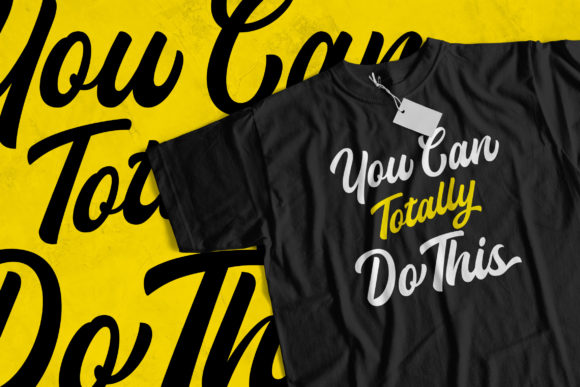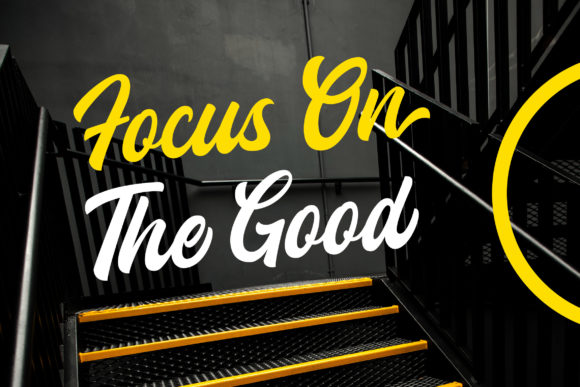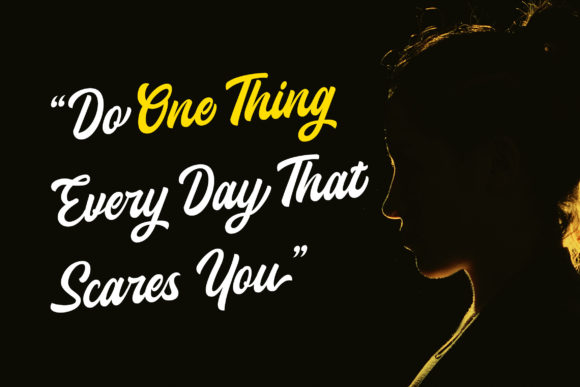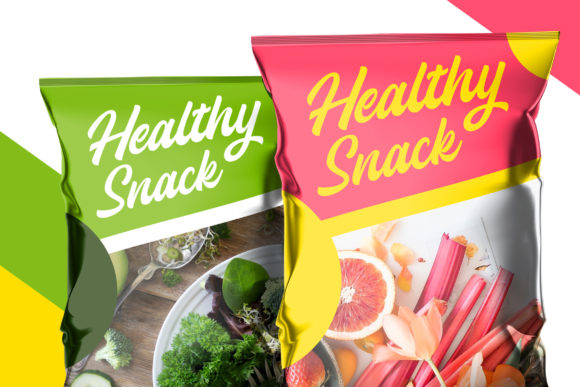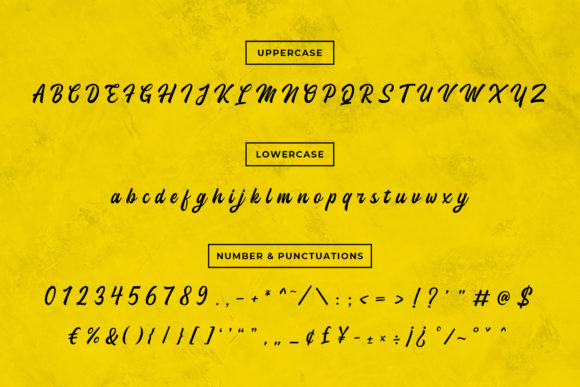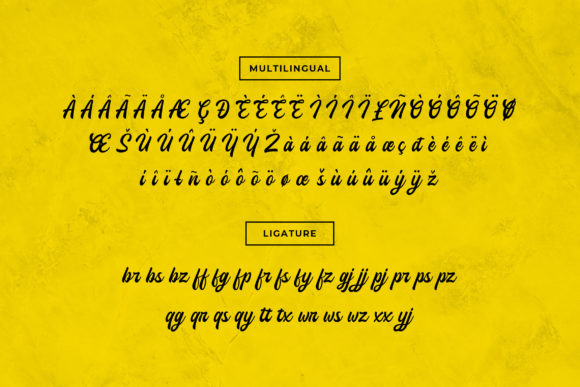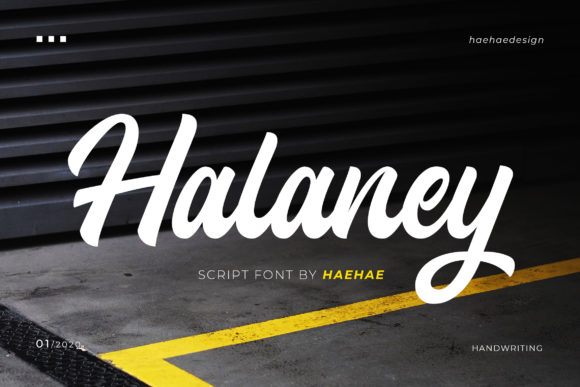
Halaney Font: A Beautiful Handwritten Font for Craft and Business Purposes
In the world of design, fonts play a crucial role in conveying messages, expressing emotions, and creating visual identities. Among the numerous fonts available, Halaney stands out as a beautiful handwritten font that has gained popularity among designers and crafters. In this article, we’ll explore the features, uses, and benefits of Halaney font, and why it’s an excellent choice for various craft and business purposes.
What is Halaney Font?
Halaney is a carefully crafted handwritten font that exudes elegance, simplicity, and charm. Its unique and flowing strokes make it perfect for creating visually appealing designs that capture the audience’s attention. The font’s versatility and legibility make it suitable for a wide range of applications, from personal projects to commercial endeavors.
Features of Halaney Font
Halaney font boasts several features that make it an attractive choice for designers and crafters:
- Handwritten style: Halaney’s handwritten style gives it a personal and authentic touch, making it ideal for designs that require a human touch.
- Legibility: The font’s clear and readable design ensures that your message is conveyed effectively, even at small sizes.
- Versatility: Halaney can be used for various design purposes, from logos and branding to publications and social media posts.
- Elegant and simple: The font’s elegant and simple design makes it easy to pair with other fonts and design elements.
Uses of Halaney Font
Halaney font is an excellent choice for various craft and business purposes, including:
- T-shirt design: Create stunning t-shirt designs with Halaney font, perfect for personal or commercial use.
- Logo design: Use Halaney font to create unique and memorable logos for your business or brand.
- Embroidery: Halaney font is suitable for embroidery designs, adding a touch of elegance to your embroidered products.
- Craft design: The font’s versatility makes it perfect for various craft designs, such as card making, scrapbooking, and more.
- Publications: Use Halaney font for publications like posters, banners, magazines, invitations, books, and labels.
- Social media posts: Add a personal touch to your social media posts with Halaney font, making them stand out from the crowd.
Benefits of Using Halaney Font
Using Halaney font offers several benefits, including:
- Unique designs: Halaney font helps you create unique and eye-catching designs that set you apart from others.
- Time-saving: The font’s legibility and versatility save you time and effort in designing and editing.
- Professional look: Halaney font gives your designs a professional and polished look, perfect for business purposes.
In conclusion, Halaney font is a beautiful handwritten font that offers a wide range of possibilities for craft and business purposes. Its unique features, versatility, and legibility make it an excellent choice for designers and crafters looking to create stunning designs. Whether you’re a professional designer or a hobbyist, Halaney font is a great addition to your font collection.